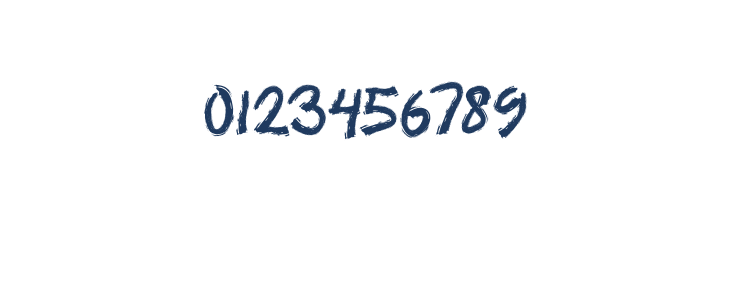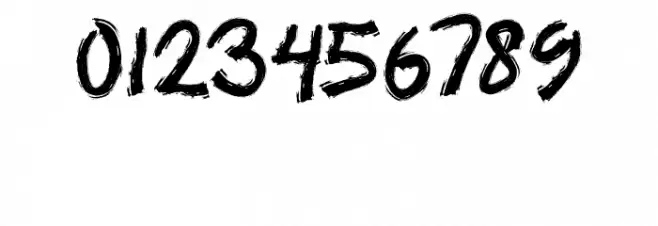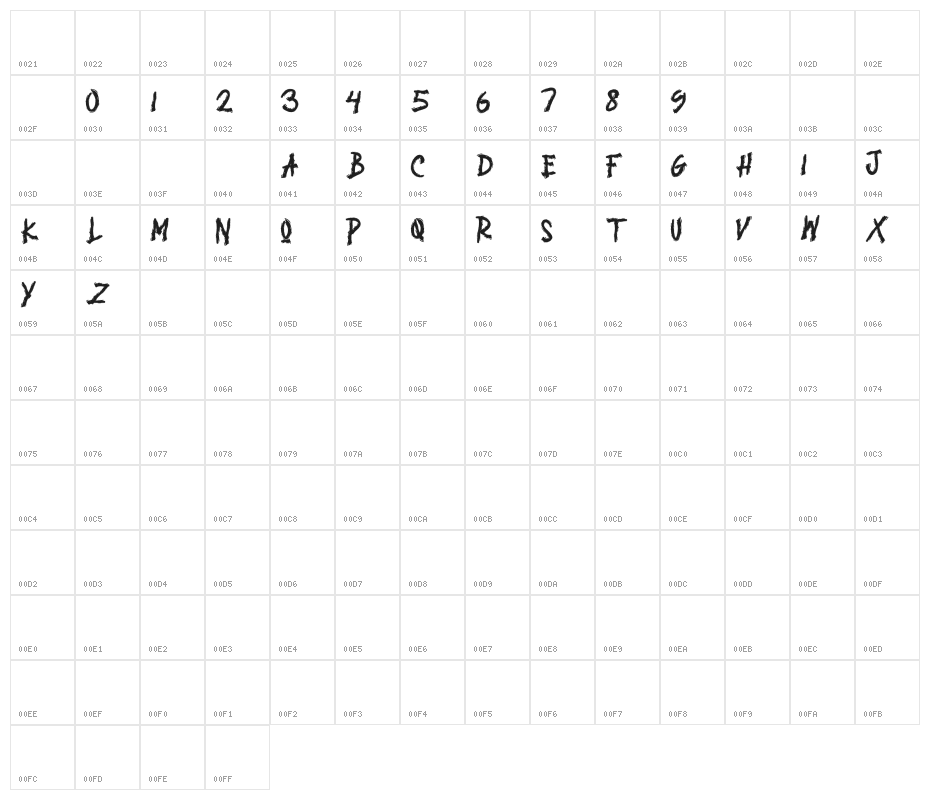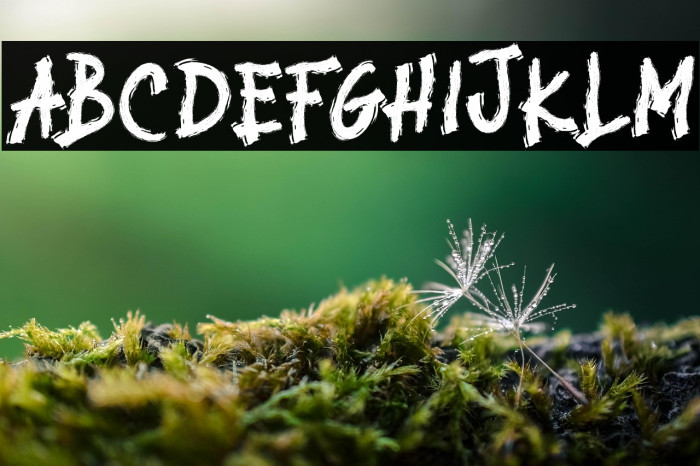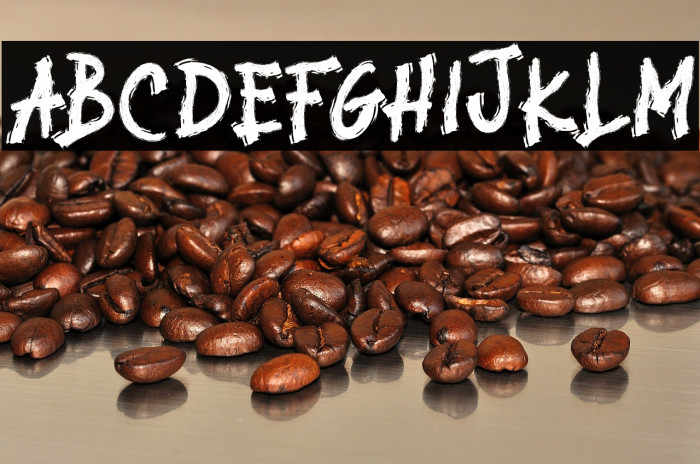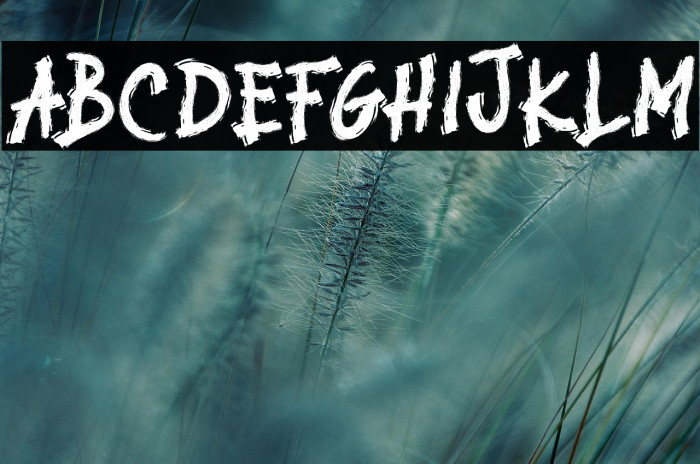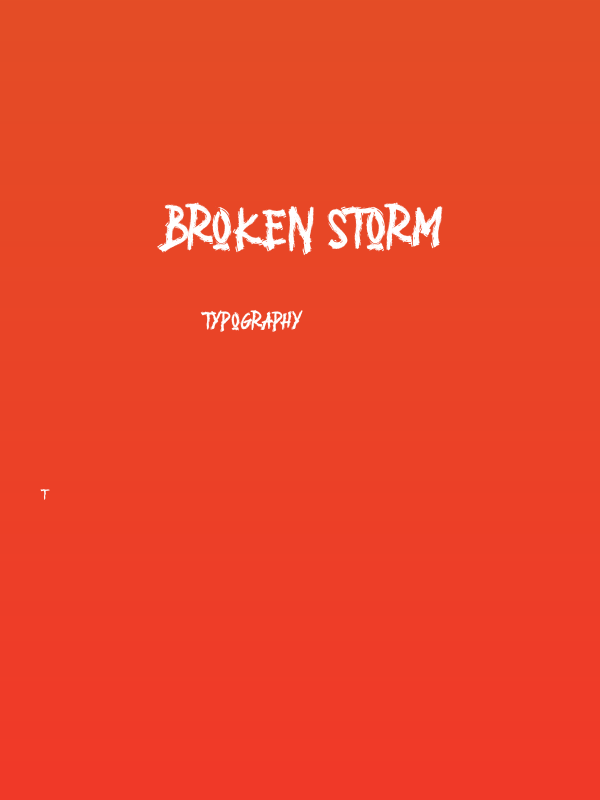
BROKEN STORM Font
BROKEN STORM Description
This font features a bold, brushstroke style that conveys a sense of energy and movement. The letters are irregular and dynamic, with rough edges that give them a hand-painted appearance. Each character is unique, with varying thicknesses and angles, creating a lively and unpredictable aesthetic. The font's design suggests a sense of urgency and rawness, making it ideal for projects that require a bold and impactful visual statement. Its distinctive style is reminiscent of street art or graffiti, offering a modern and edgy look.
| Overall Style | Modern, Edgy |